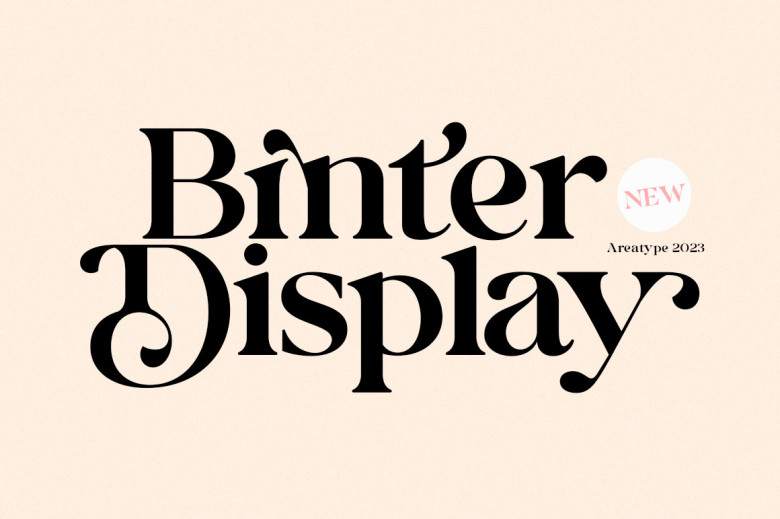
Binter Display Font
Binter Display is an exquisite serif typeface with a timeless appeal, ideal for branding, editorial design and printing materials. Inspired by classic typography, its elegant, classic letters make an impactful statement about any design project it graces. Plus, being PUA encoded means easy access to its many swashes and glyphs!
Binter Display Serif Font